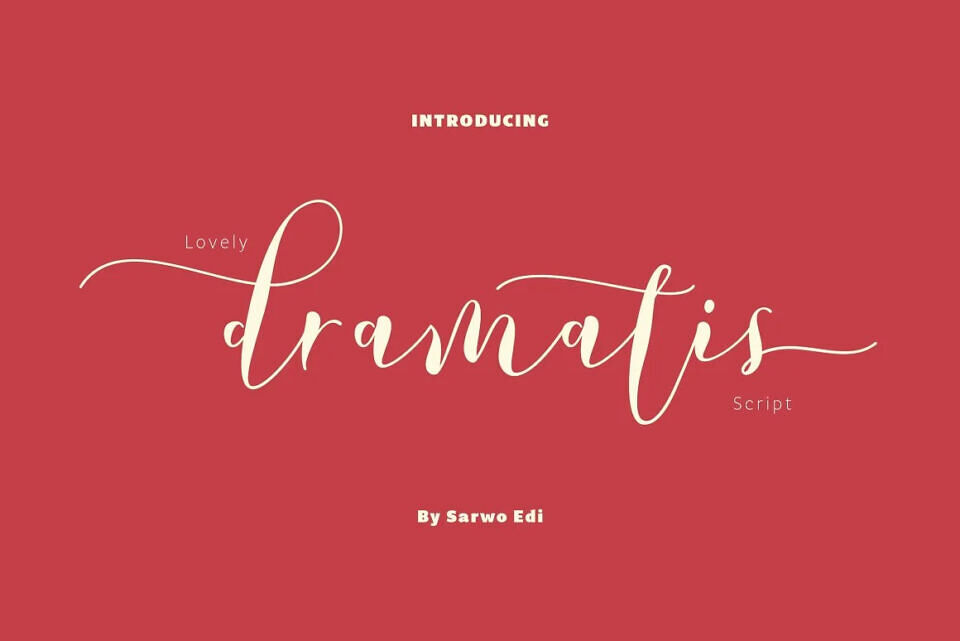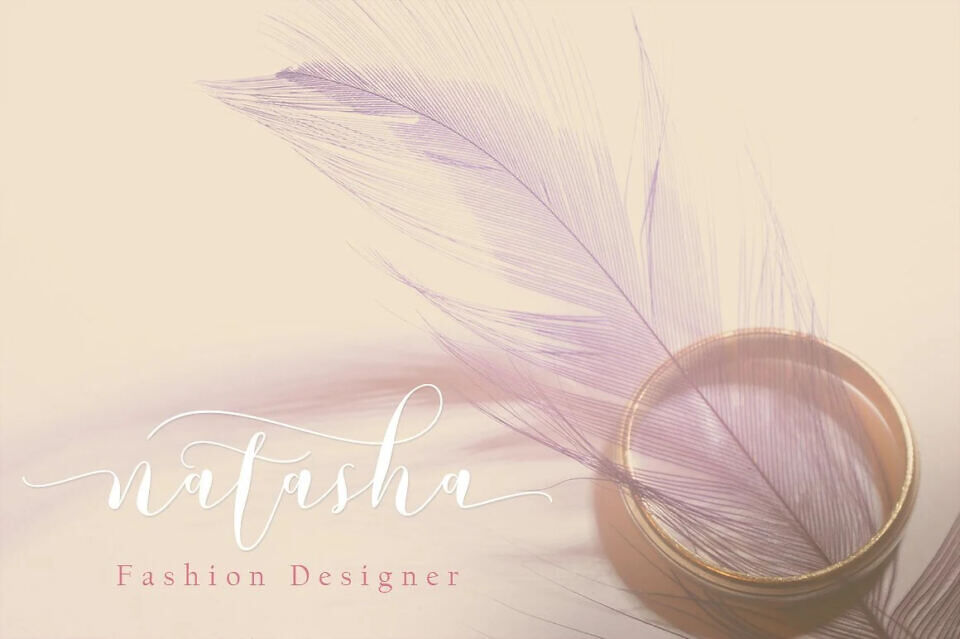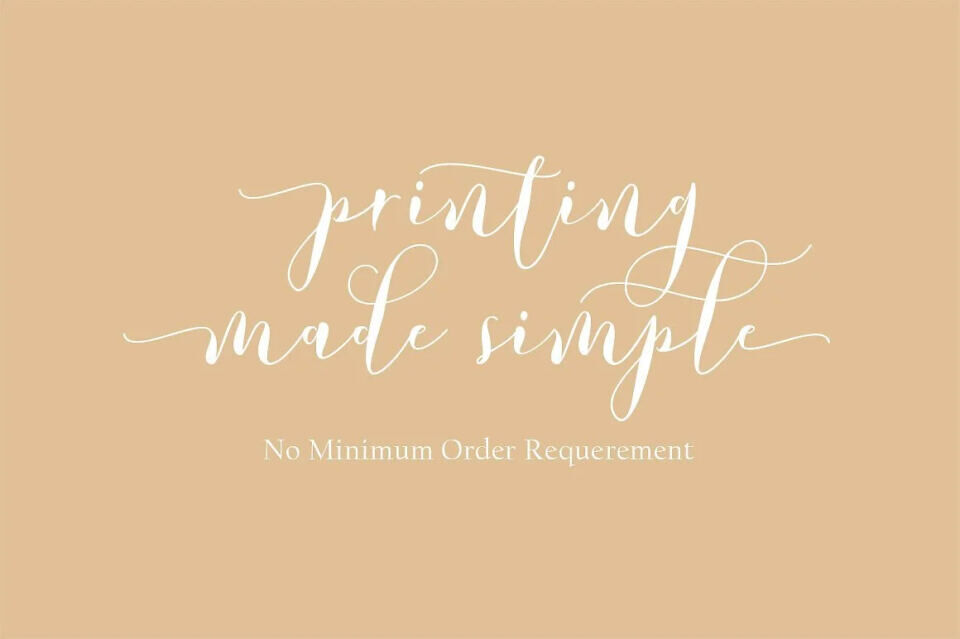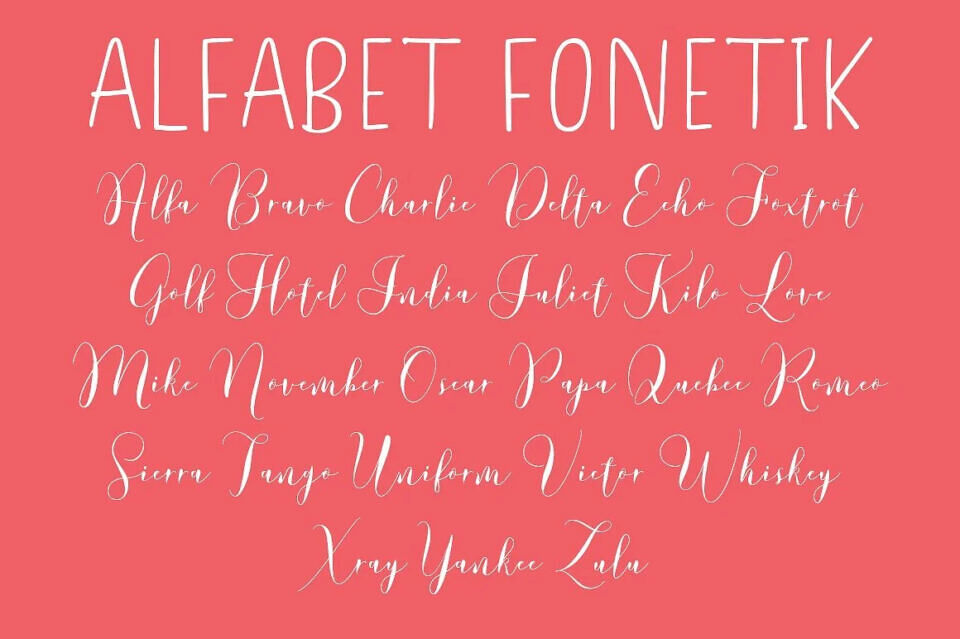
Introducing Lovely Dramatis, a contemporary script typeface designed for modern applications. This font offers both ease of use and playfulness, allowing you to experiment with various combinations to achieve stunning results.
Featuring a modern, handmade, and clean style, Lovely Dramatis comes with a plethora of features, including swashes, ligatures, alternates, and support for most Western languages.
Lovely Dramatis is perfect for fashion brands, e-commerce websites, wedding boutiques, photography, quotes design, and much more.